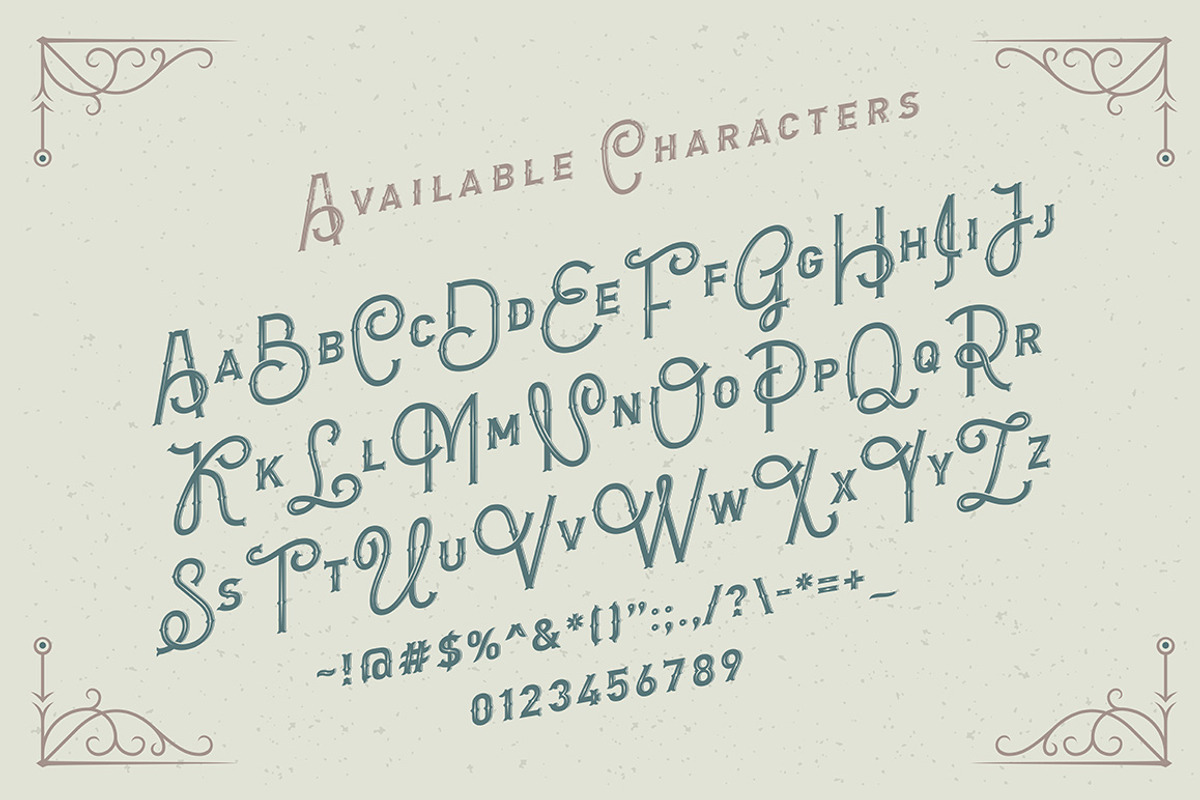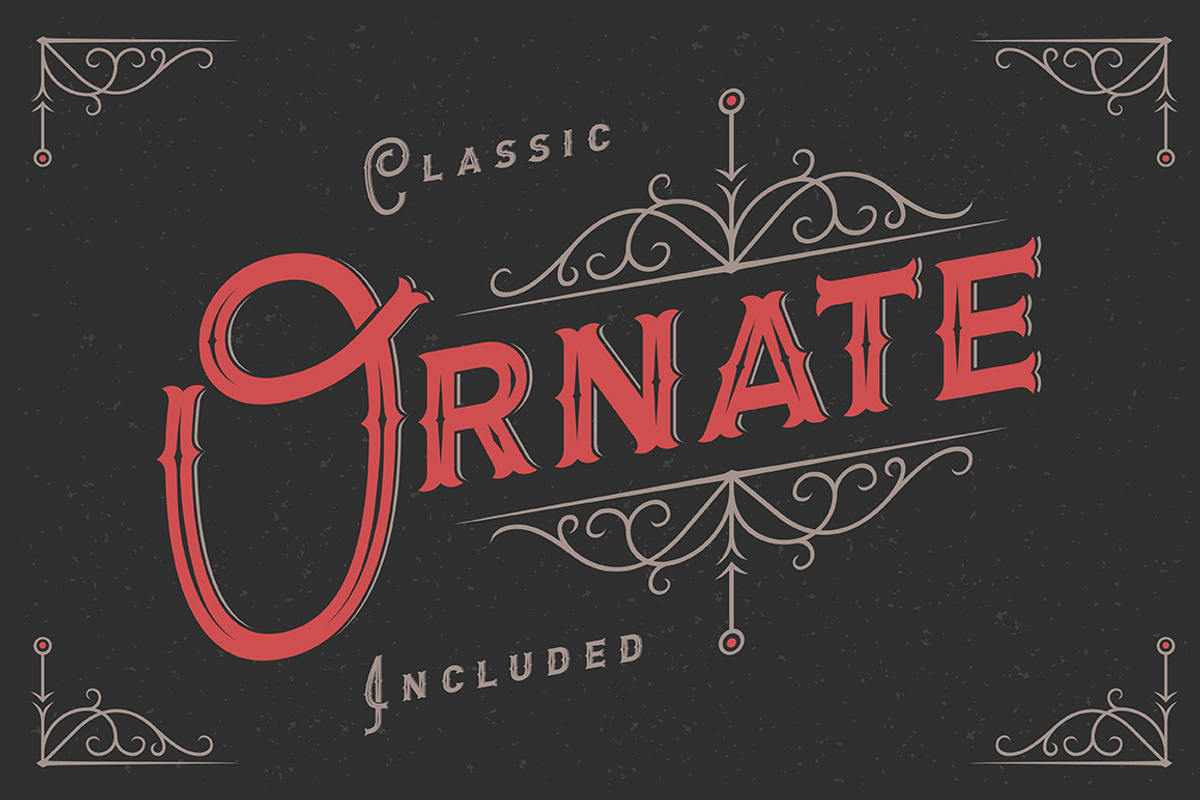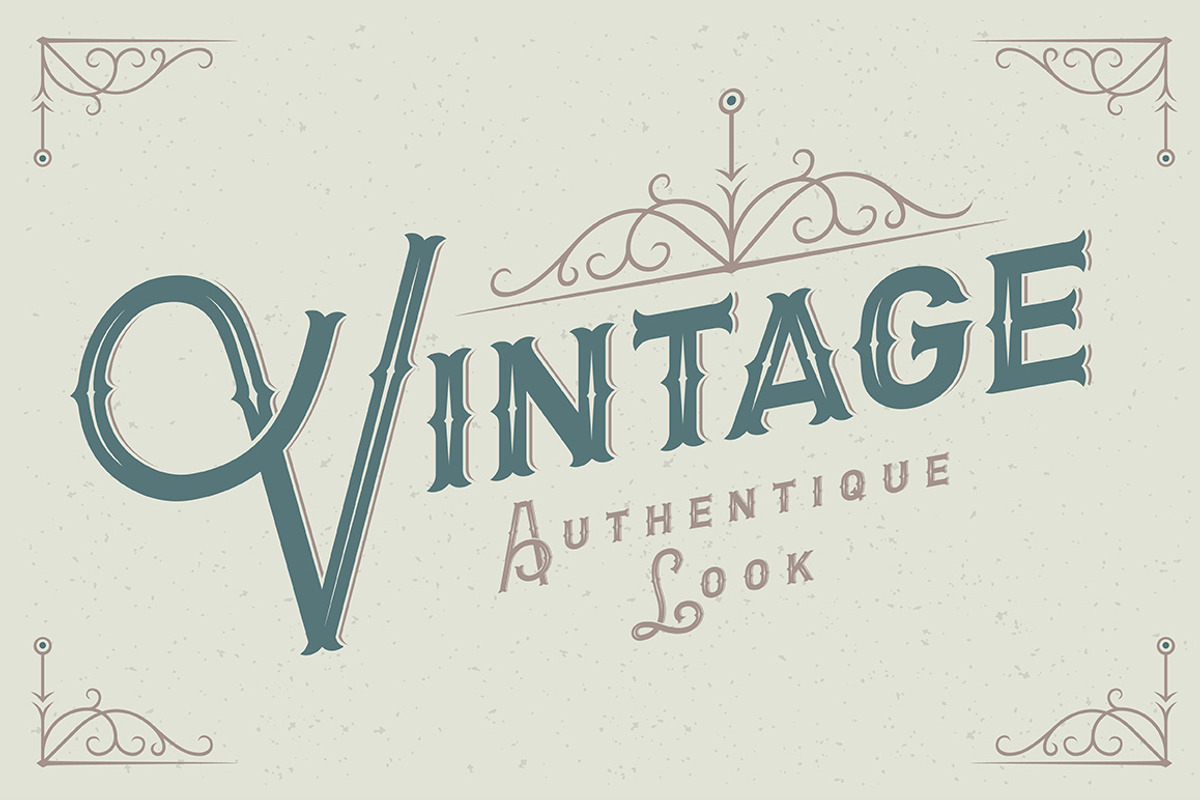
Letterhead typeface with ornate
Letterhead typeface with ornate by Gleb Guralnyk is a font selected for branding, posters, packaging, typography.
Why Letterhead typeface with ornate is worth a look
Letterhead typeface with ornate by Gleb Guralnyk fits naturally into Branding, posters, packaging, typography.